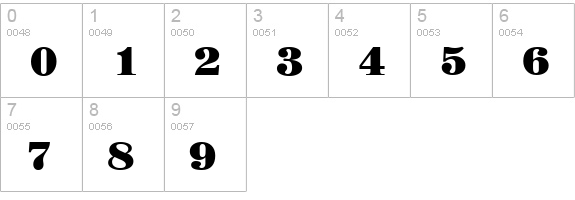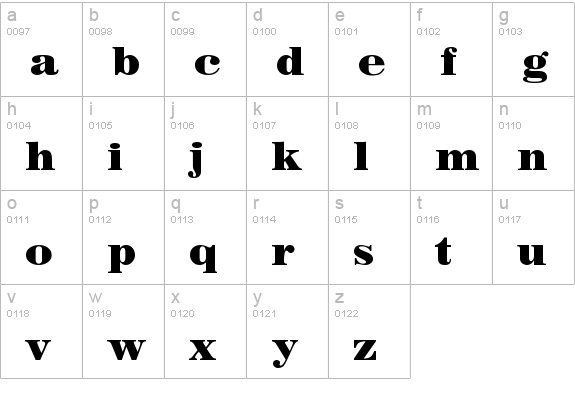
Magazine-Heavy-Regular is a heavy, high-impact variant in the Magazine typeface family \xE2\x80\x94 well suited to high-impact headlines, posters, and display advertising.
Magazine Heavy Regular font is a bold and impactful typeface that exudes confidence and modernity. With its strong, thick lines and clean design, this font is perfect for headlines, titles, and other attention-grabbing text. Its sturdy appearance makes it ideal for use in magazines, posters, and other print materials that require a strong visual presence. Best of all, Magazine Heavy Regular font is available for free download at FontsMarket.com. This means you can easily access and use this stylish font for your projects without any cost. Whether you're working on a magazine layout, promotional materials, or any other design project, Magazine Heavy Regular font will help you make a bold statement. Download it today and add a touch of sophistication to your designs.